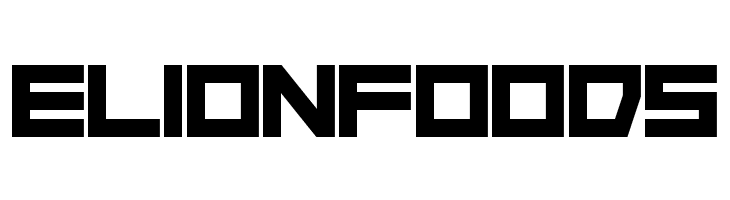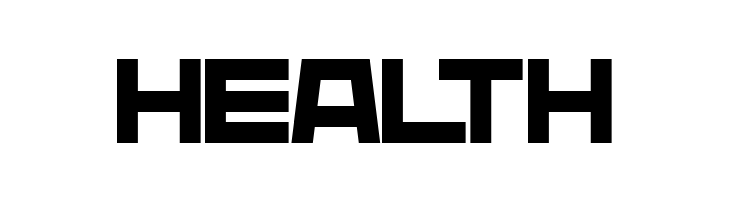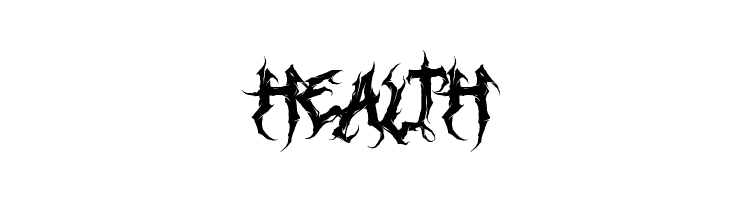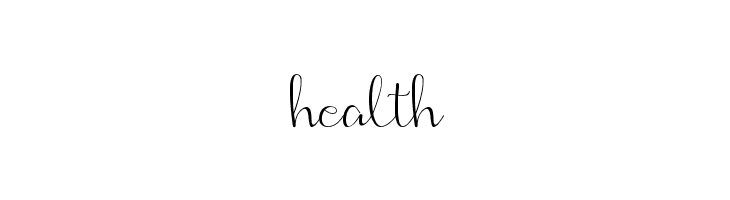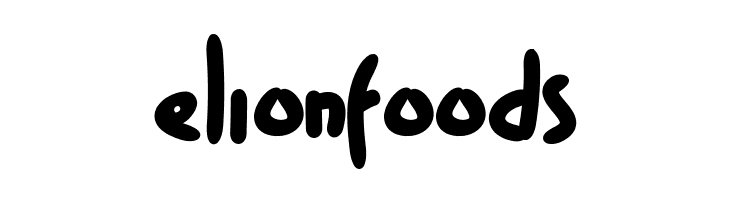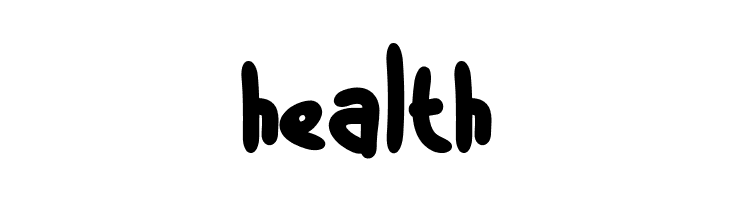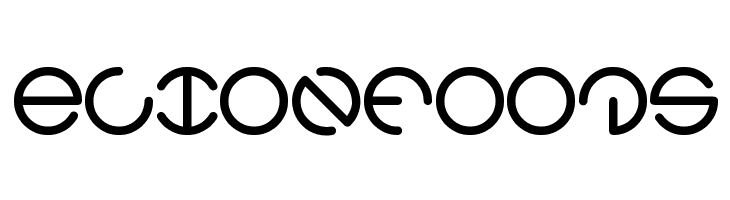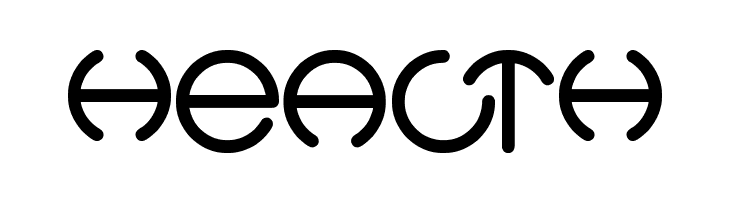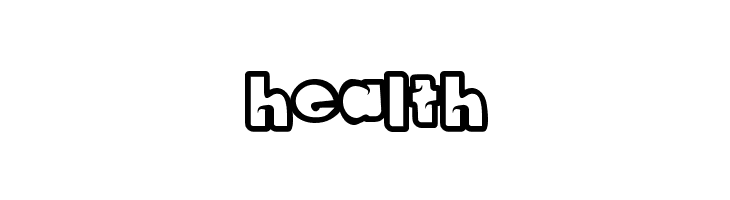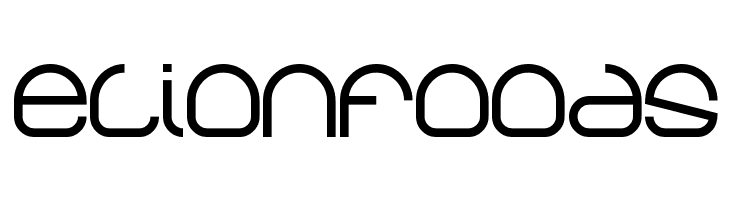
A bold, playful font with thick outlines and a cartoonish style.
A playful, Halloween-themed font with hand-drawn, brush-like letters.
An elegant script font with flowing, cursive strokes and high contrast.
A playful, handwritten marker-style font with bold, rounded characters.
A bold, geometric font with a futuristic and modern design.
A jagged, edgy font with sharp, thorn-like characters.
A futuristic, geometric font with circular motifs and bold strokes.
A futuristic and geometric font with smooth curves and a modern aesthetic.
A playful and elegant script font with a handwritten style.
A futuristic and geometric font with clean lines and rounded edges.